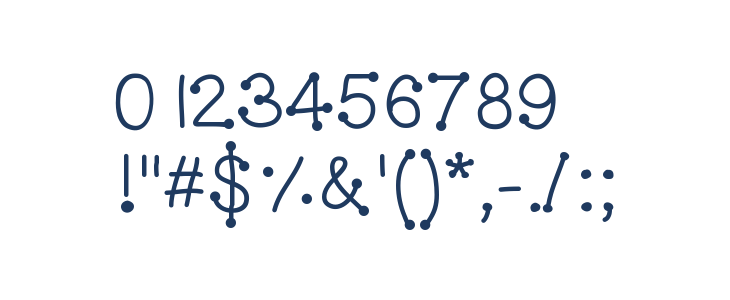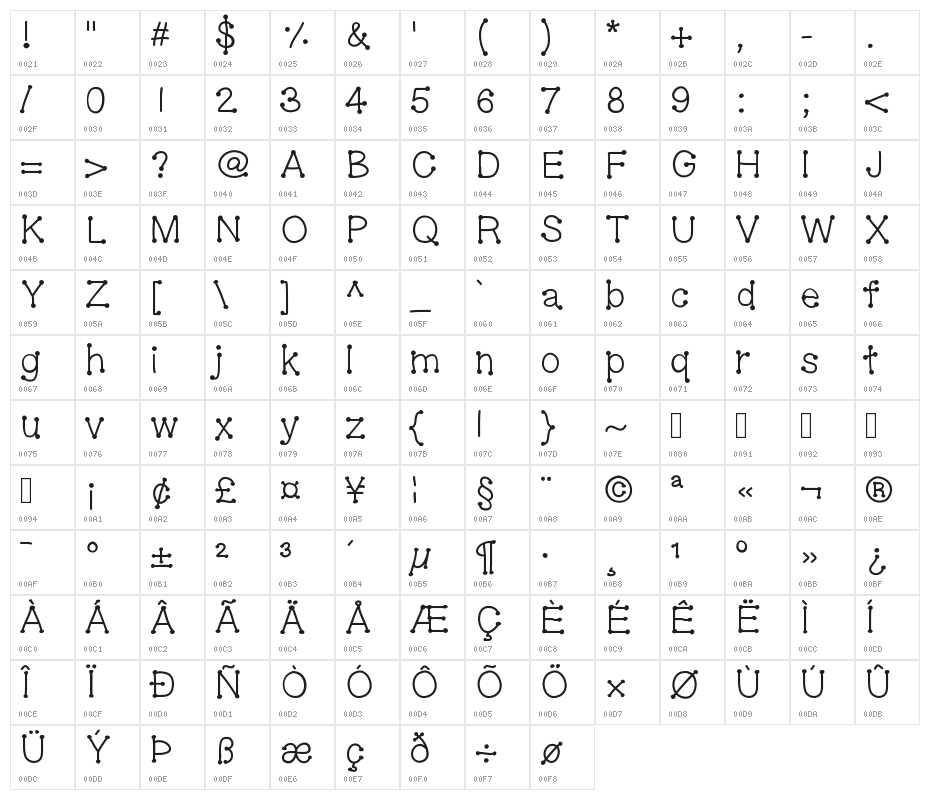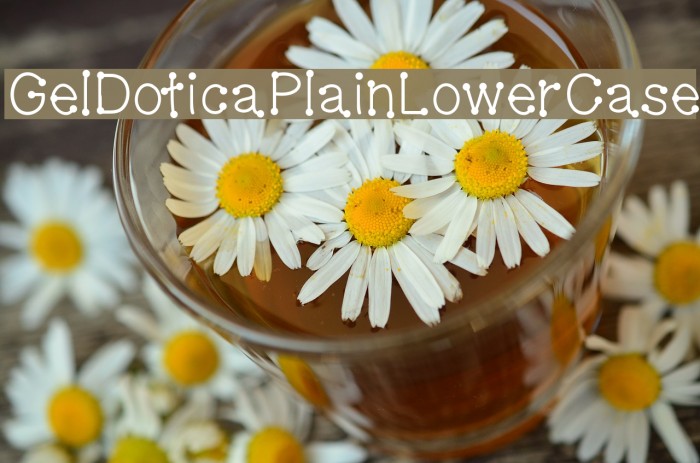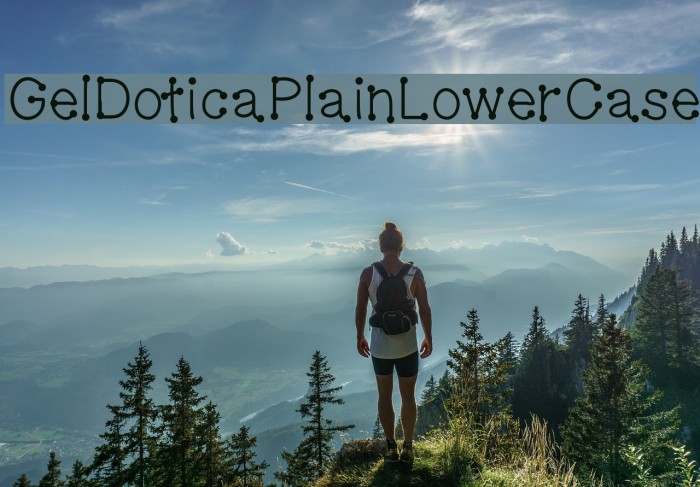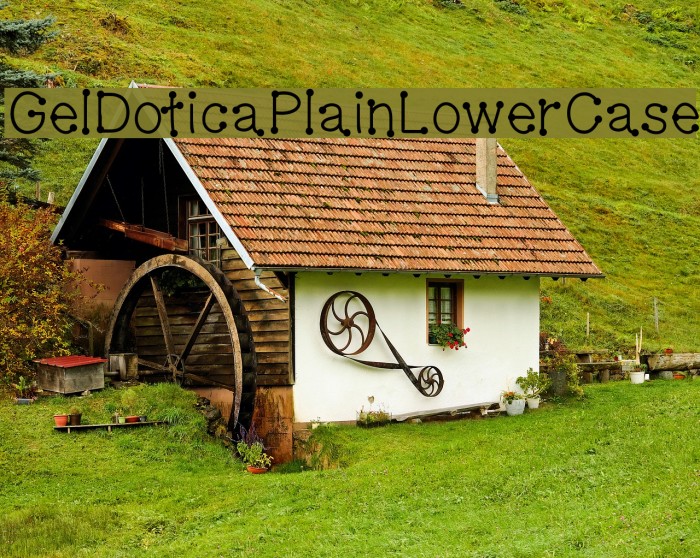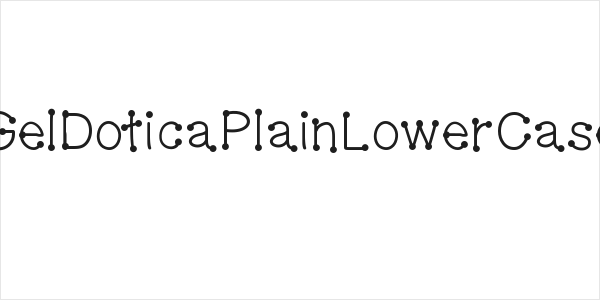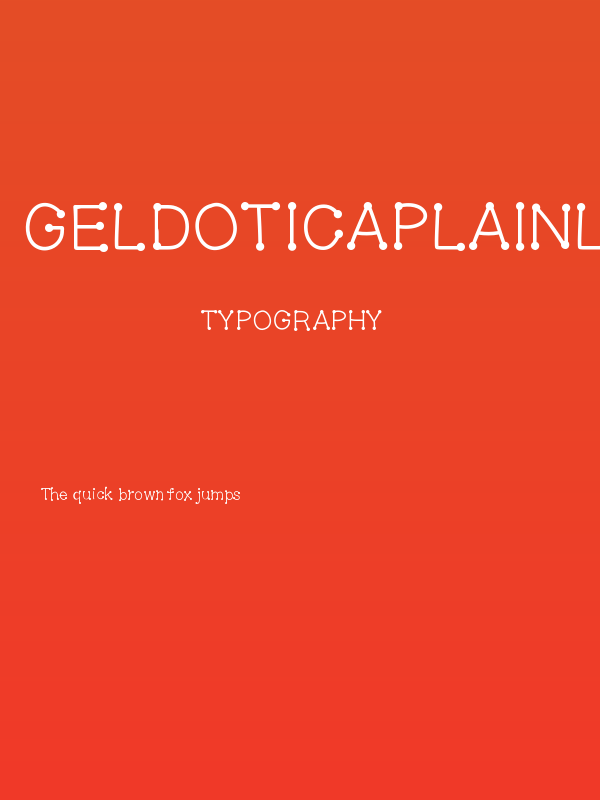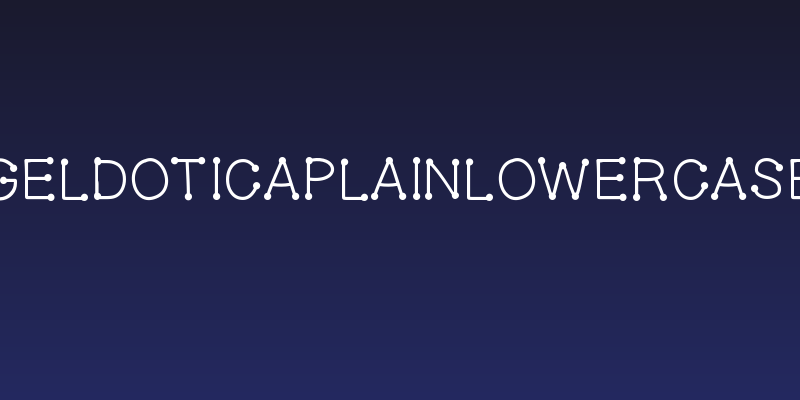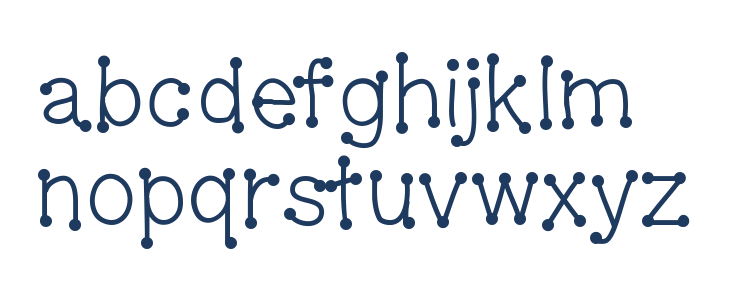
GelDoticaPlainLowerCase Font
GelDoticaPlainLowerCase Description
This font features a playful and unique design with rounded terminals that resemble dots, giving it a whimsical and friendly appearance. The characters are evenly spaced and maintain a consistent stroke width, contributing to its legibility. The uppercase and lowercase letters share a uniform style, with a slight variation in height and width to distinguish them. Numbers and special characters are designed to match the overall aesthetic, ensuring cohesion across all text elements. This font's distinct style makes it suitable for creative and informal applications.
| Proposed Projects | Ideal for children's books, playful branding, greeting cards, and creative posters. |